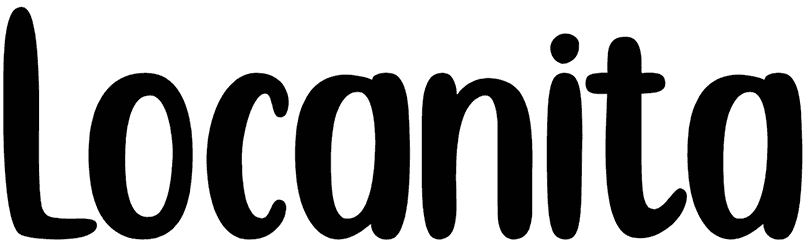
Locanita Font
Locanita is a joyful handwritten font that may be used to offer a special flavor to your digital projects and help you achieve your professional goals. Your presentation will have a playful feel to it with this fancy font.
This birthday font is great for anything from books and street banners to posters and flyers. If you’re willing to take a risk, say goodbye to boring fonts and give it a shot; we’ve got you covered.